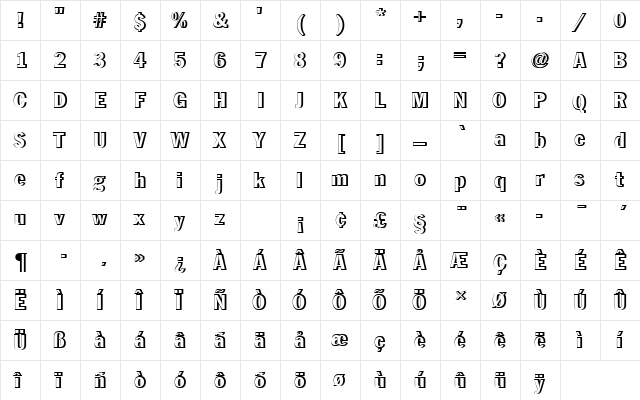
FranklinGotTRegConRe1 Regular
Design Context for FranklinGotTRegConRe1 Typeface
FranklinGotTRegConRe1 takes a measured approach to typography — its balanced proportions and neutral character make it a reliable workhorse for both digital and print work.